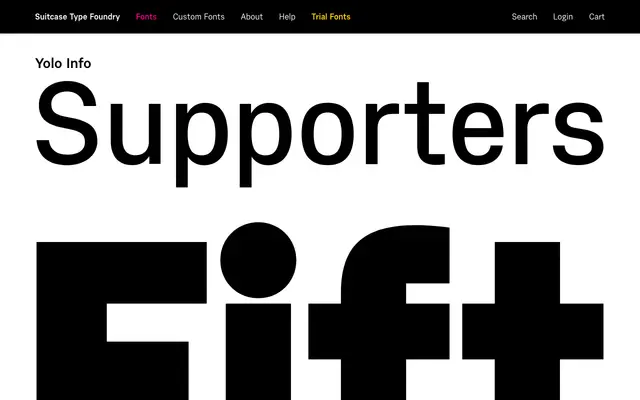
The Info cut of a four-subfamily type system from Suitcase Type Foundry, optimised for data-dense and information-heavy settings.
Yolo Info is one of four optical subfamily variants within the Yolo system, which also includes Body, Text and Display cuts, each tuned to a different reading environment and size range. The Info subfamily is positioned for functional, information-oriented use cases such as UI, wayfinding or tabular content. With ten fonts in the subfamily, the family offers sufficient weight range for complex typographic hierarchies.
The Info subfamily of the Yolo system suggests a functional, information-oriented cut typical of humanist sans designs intended for UI, wayfinding or data-dense contexts.